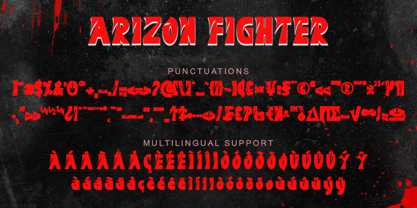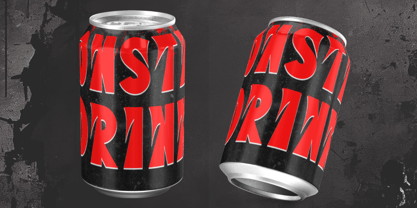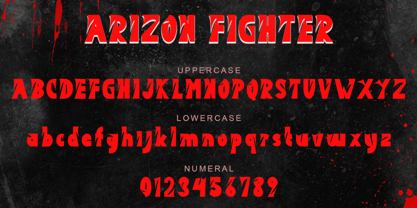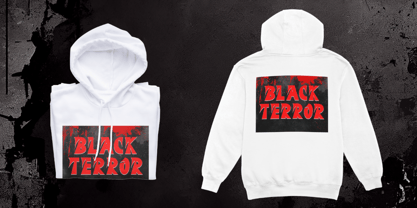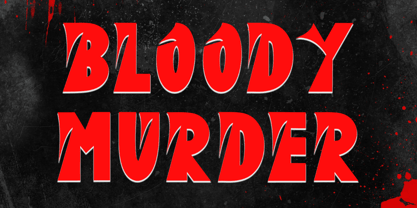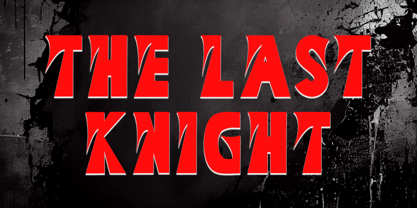
Arizon Fighter
by Yoga Letter
The Arizon Fighter Font Family was designed by Isroni Yoga Prasetya and published by Yoga Letter. Arizon Fighter contains 1 styles. More about this family
"Arizon Fighter" is an elegant and professional blackletter font. This font is equipped with uppercase, lowercase, numerals, punctuations and multilingual support. It is very suitable for banners, posters, films, halloween, summer, spring, mother's day, business branding, stickers, posters, tattoos and others.
Designers: Isroni Yoga Prasetya
Foundry: Yoga Letter